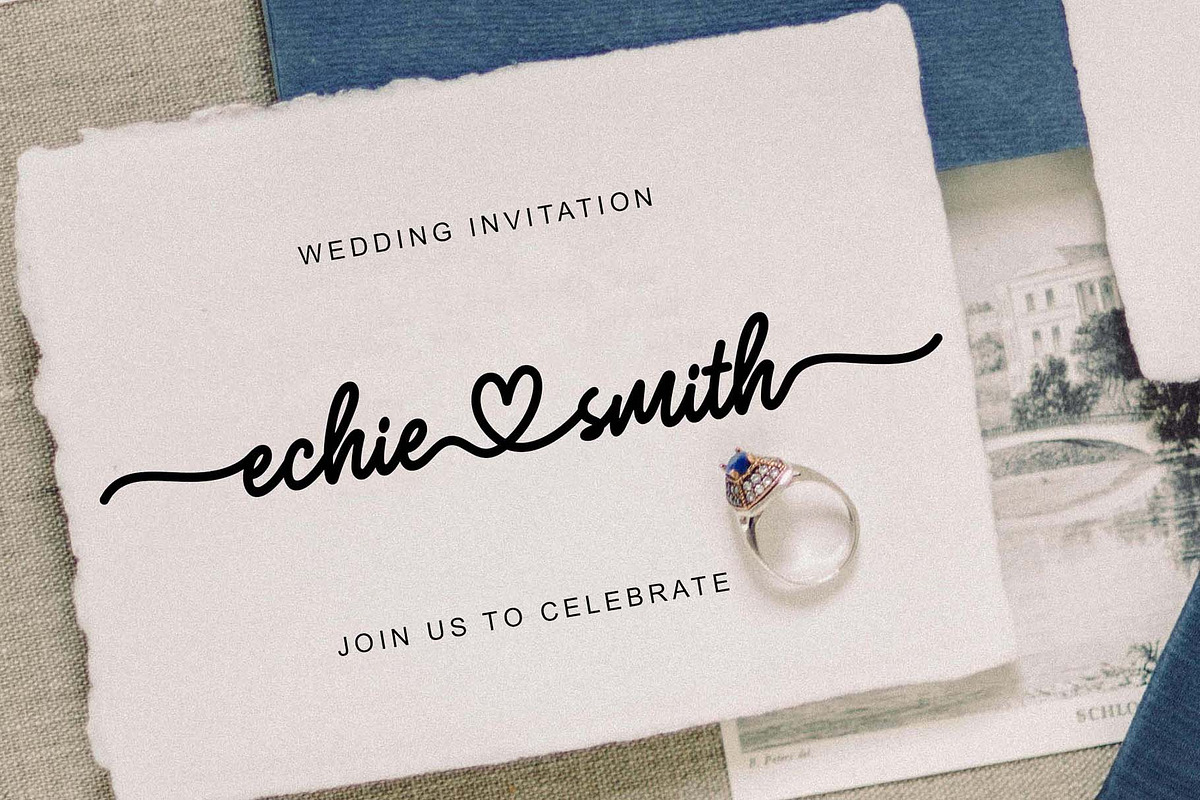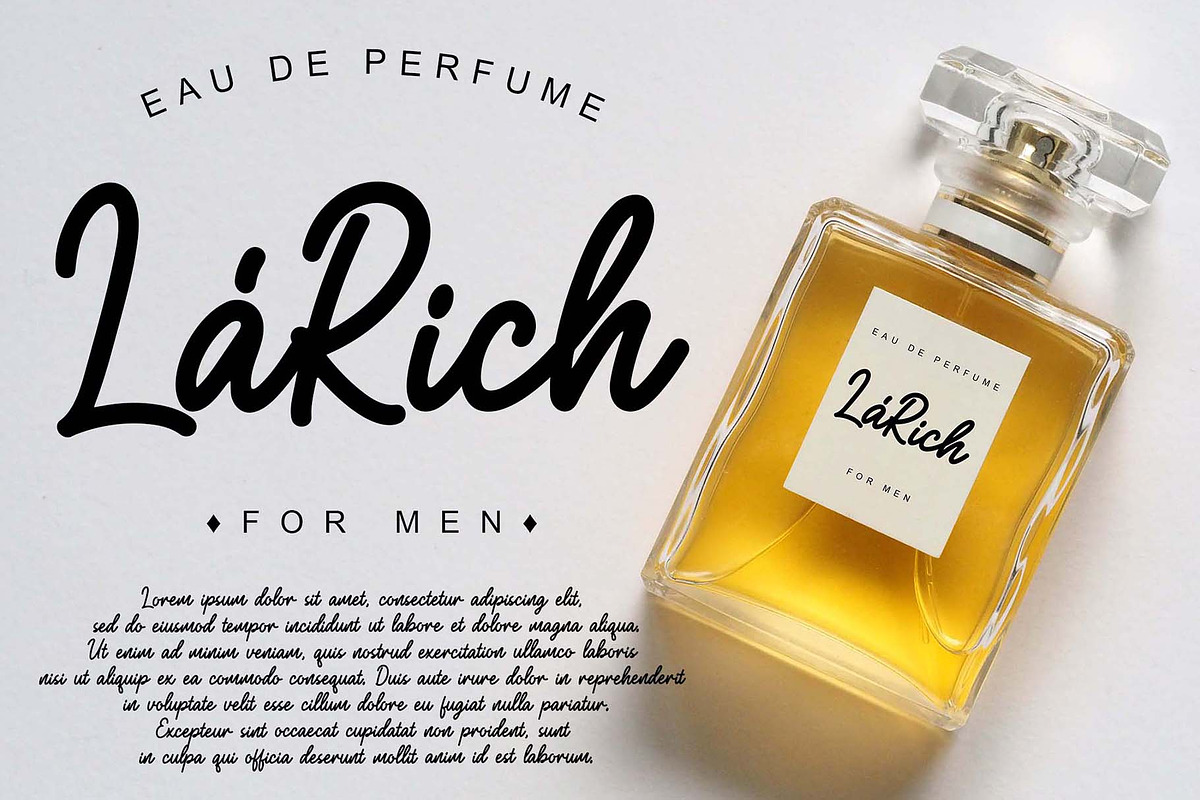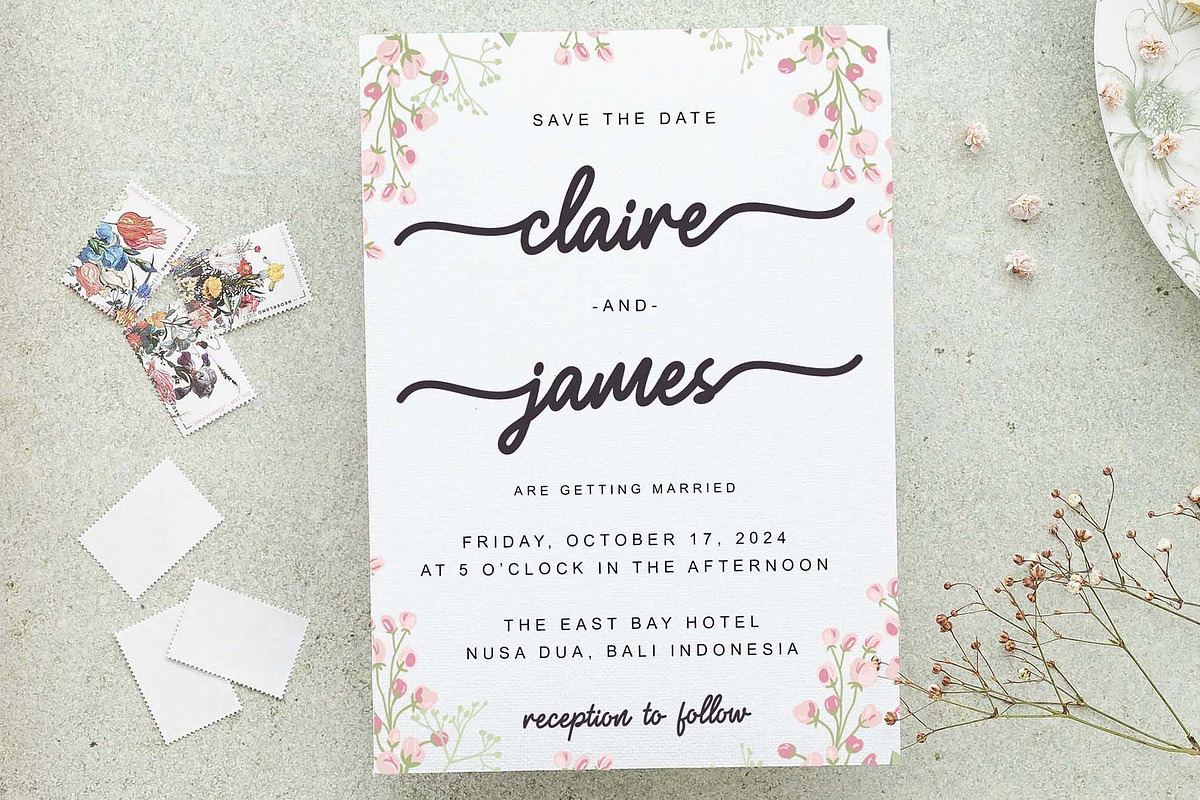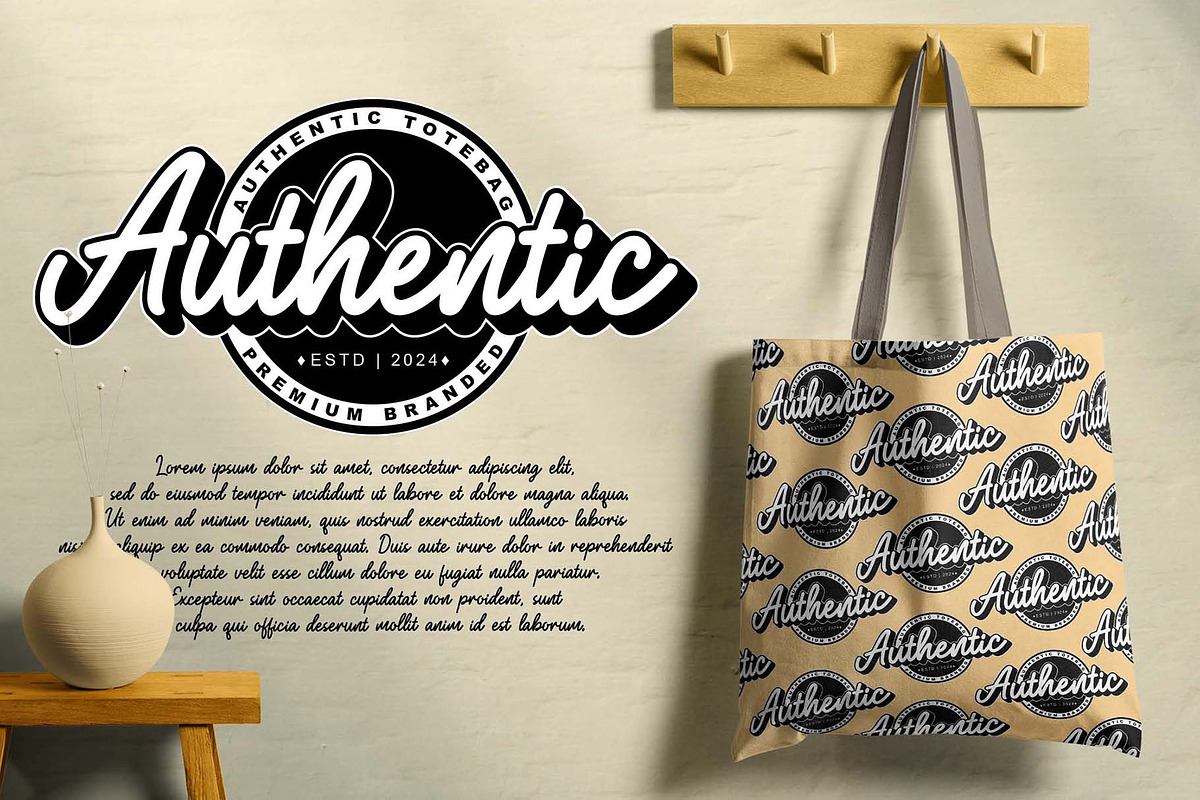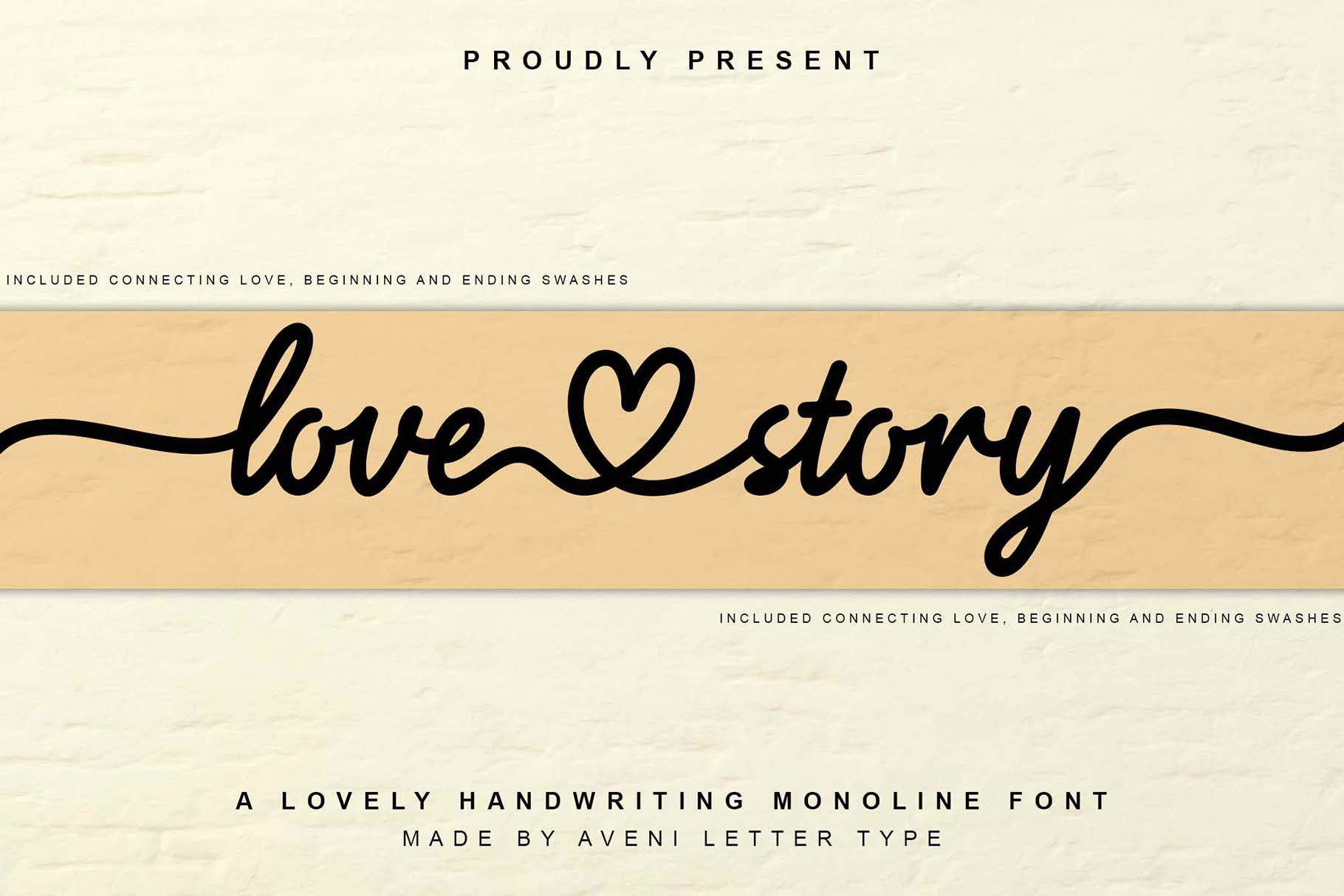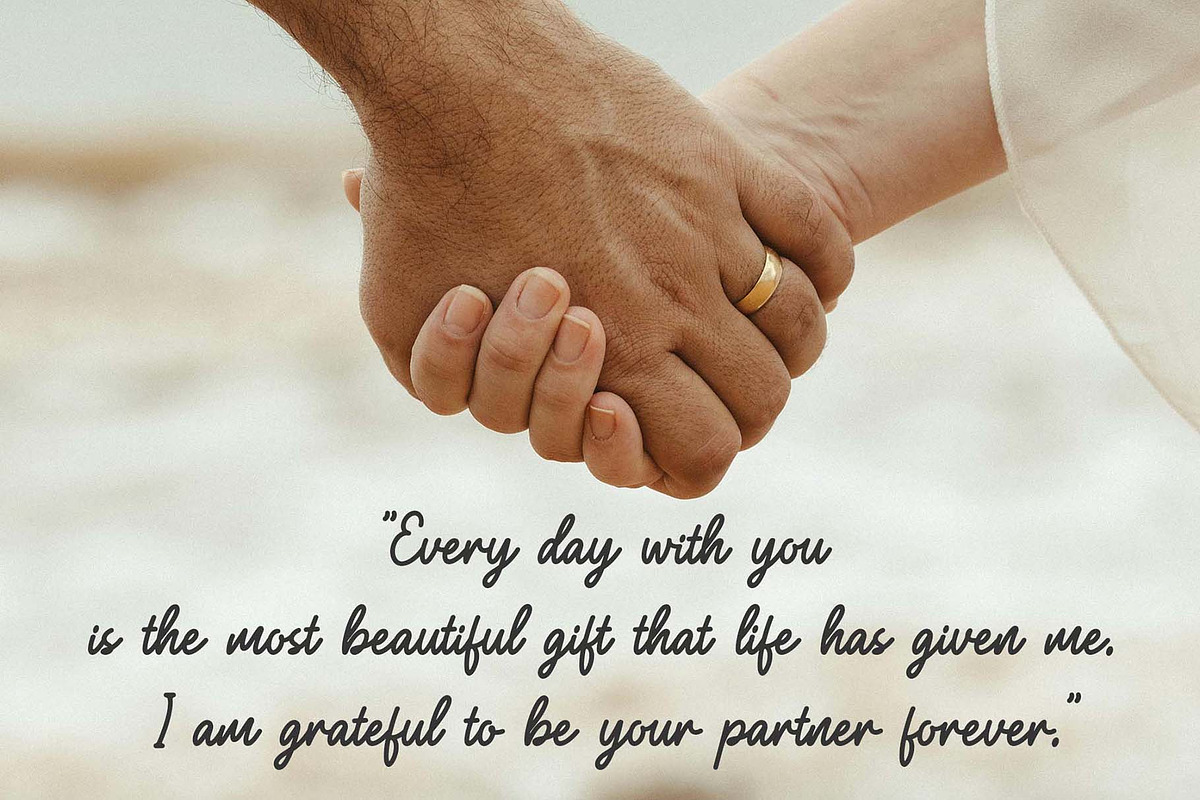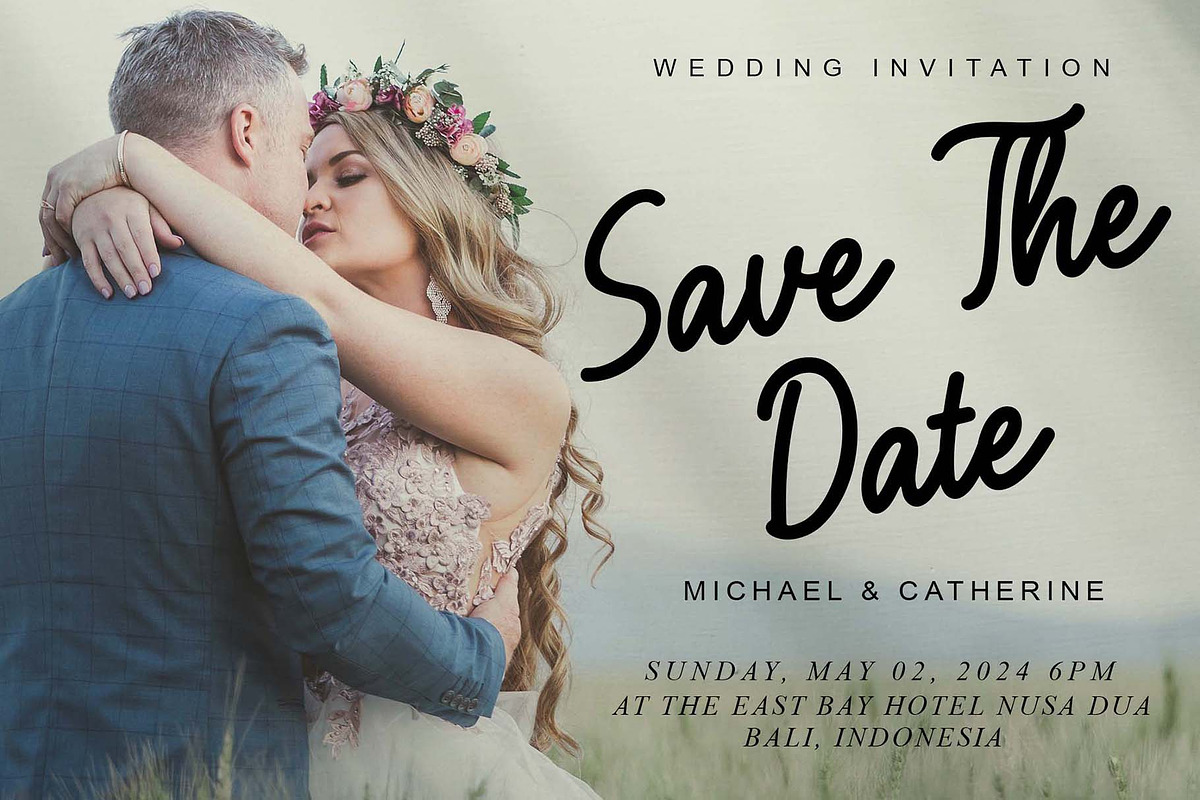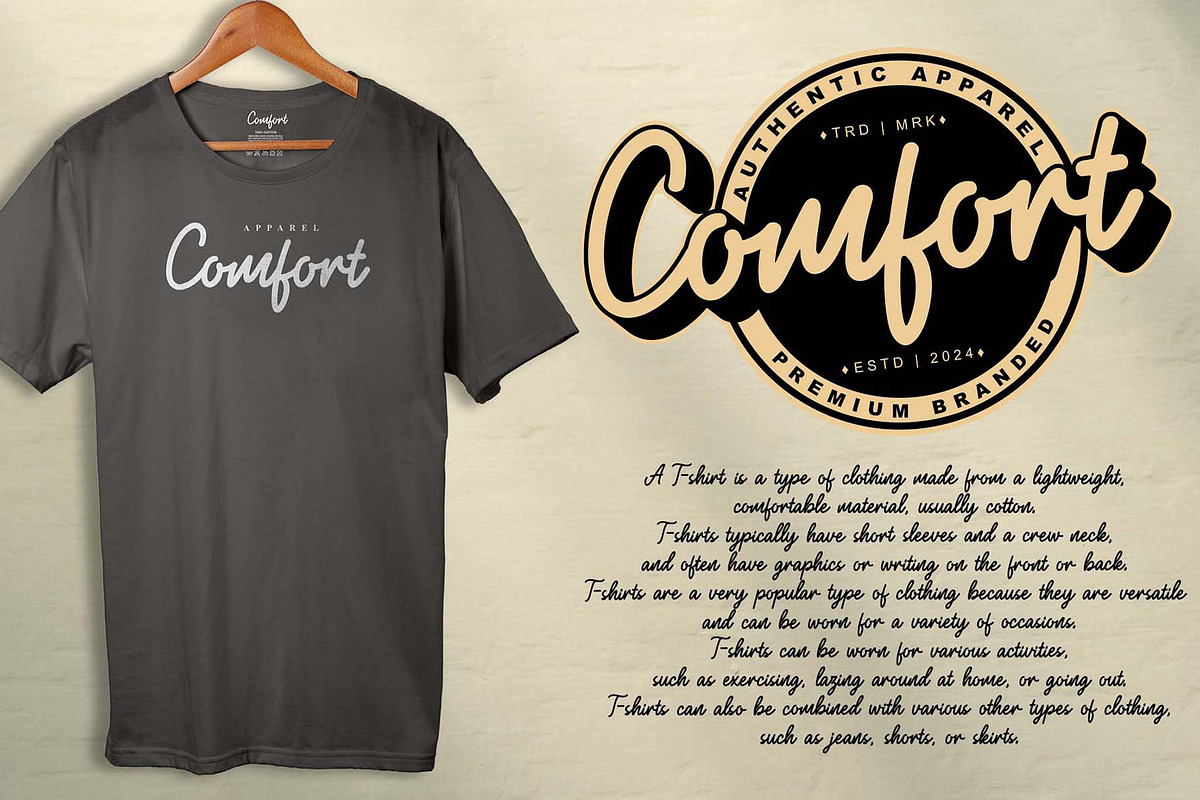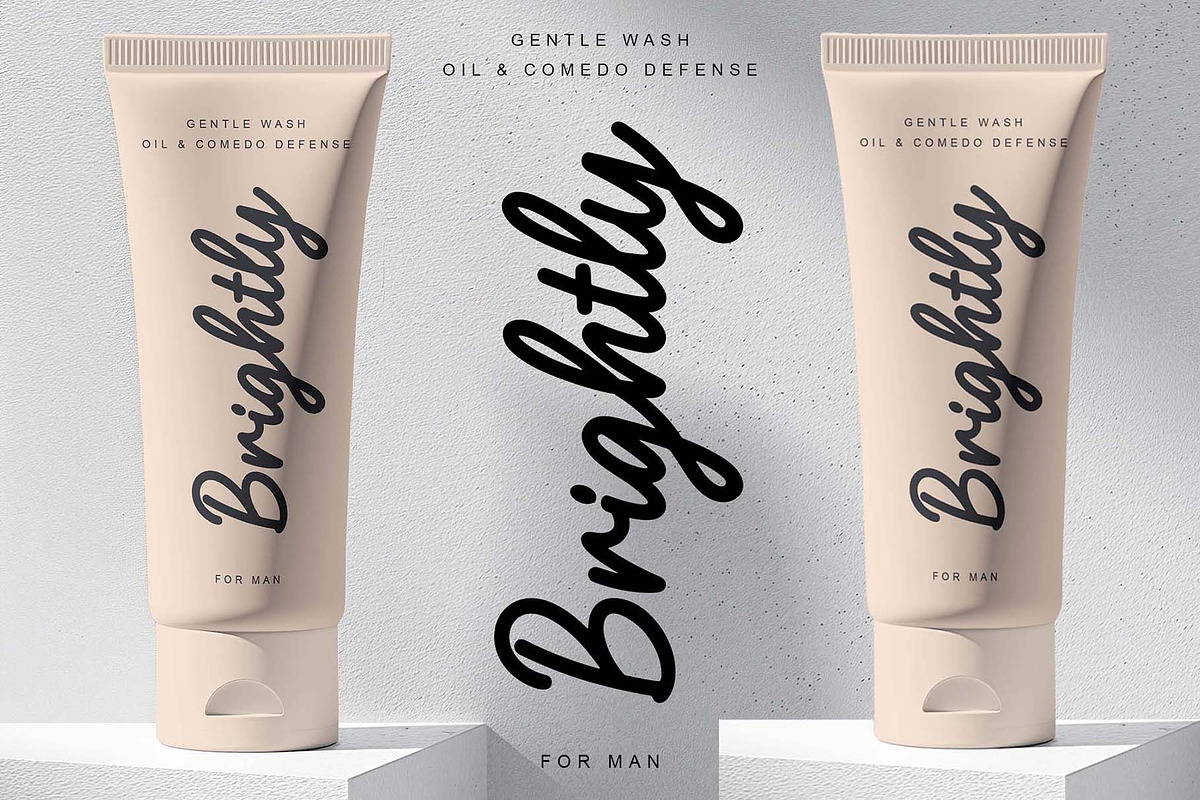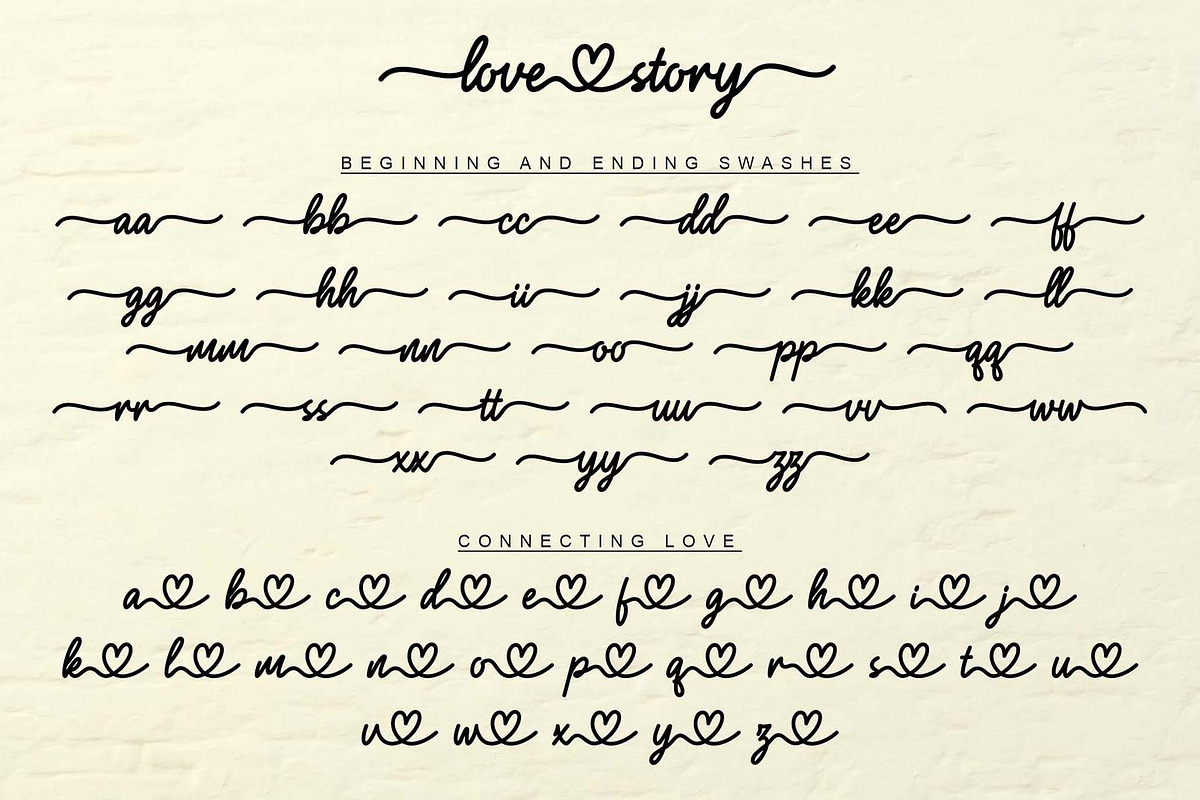
Love Story | Handwriting Font
Hello, ladies and gentlemen. I am Love Story font, which was born as a lovely handwritten monoline with very neat kerning and accompanied by extra typeface features connecting love, beginning, and ending swashes.
This Love Story font is very Instagrammable and easy to use for Windows or MAC. It is perfect for branding, wedding invites, logotypes, business cards, letterheads, cafe menu tables, shop names, company names, wedding invitation cards, packaging products for your business, clothing branding, your website or social media, and of course, there is much more creativity that you can use from this Love Story font.
Love Story font featured :
- Beginning & Ending Swashes
- Connecting Love